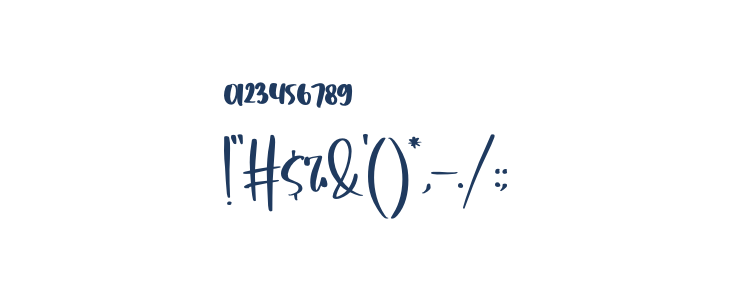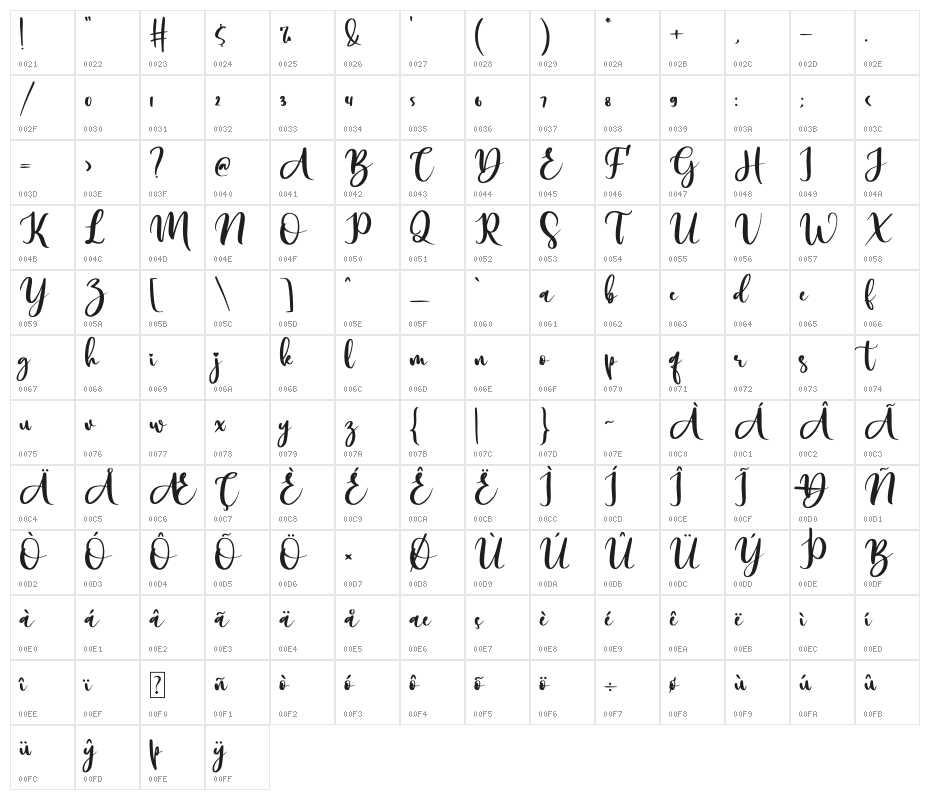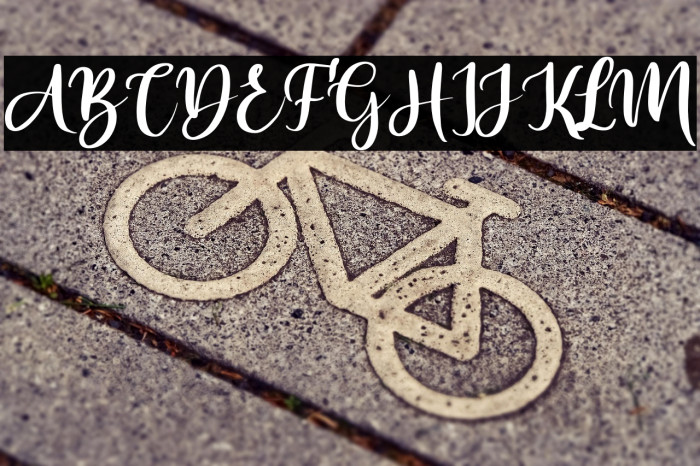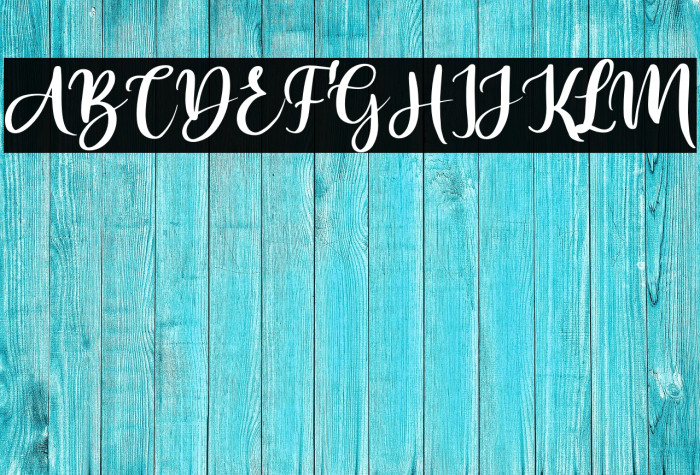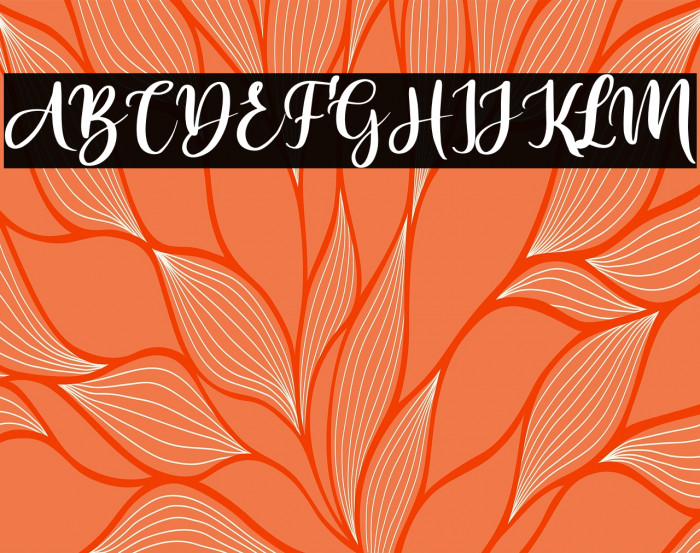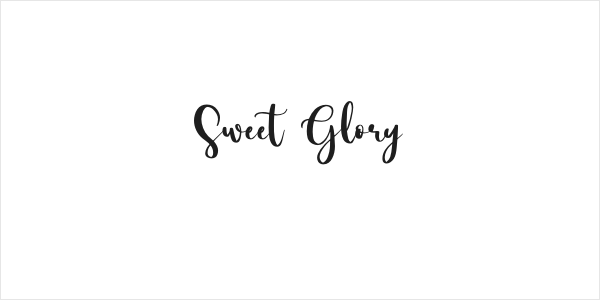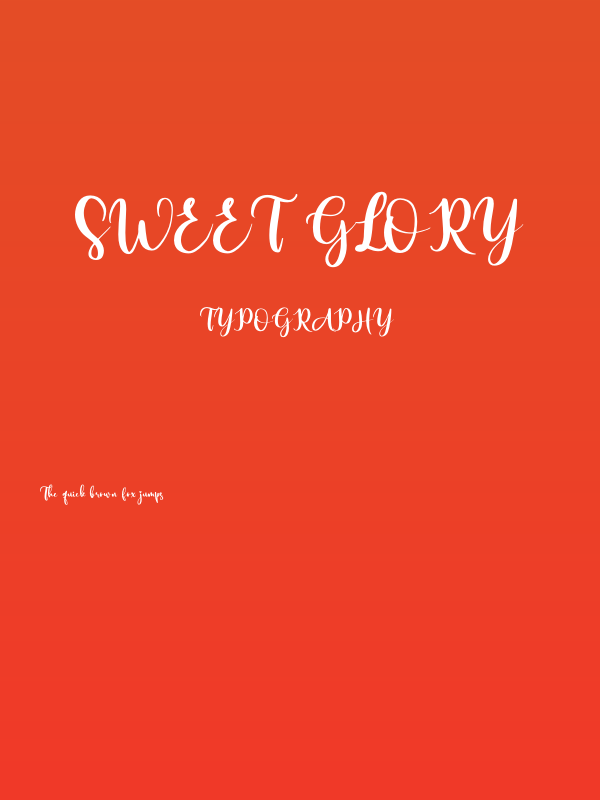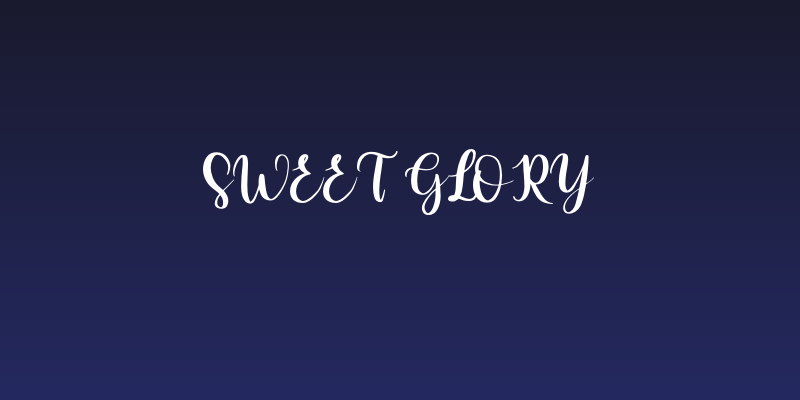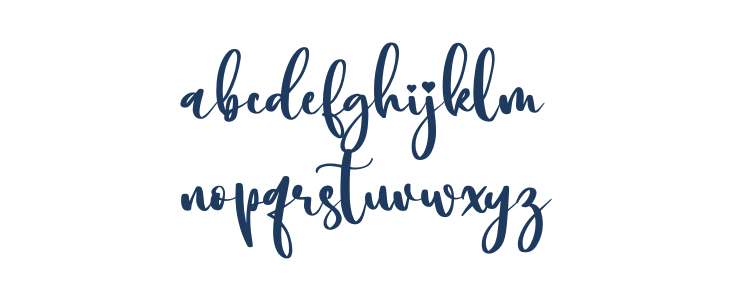
Sweet Glory Font
Sweet Glory Description
This font features a lively and elegant script style, characterized by its flowing, cursive letterforms. The uppercase letters are bold and expressive, with sweeping curves and flourishes that give a sense of movement and grace. The lowercase letters maintain this fluidity, with some characters featuring playful loops and swashes. The numbers are consistent with the script style, offering a cohesive look across all characters. Special characters are designed to match the overall aesthetic, ensuring versatility in various design contexts. The font's overall appearance is both sophisticated and approachable, making it suitable for a wide range of creative projects.